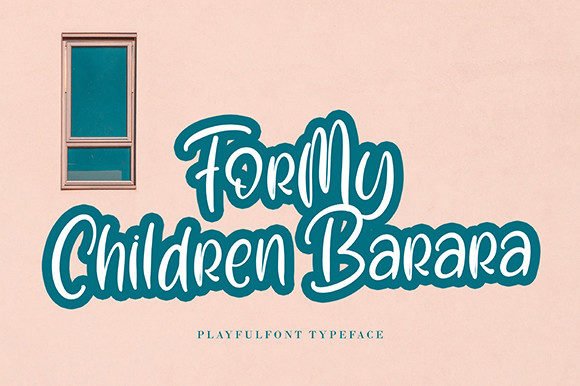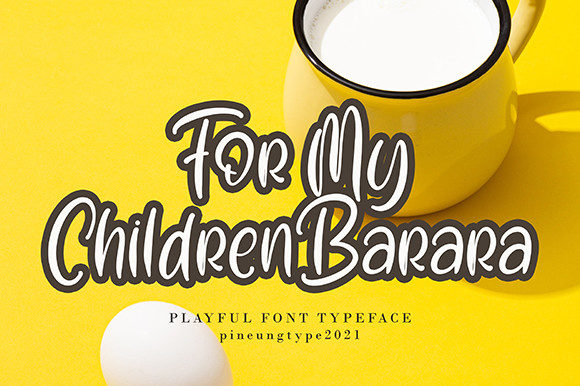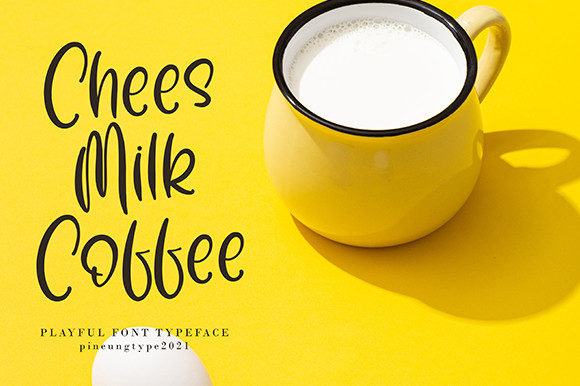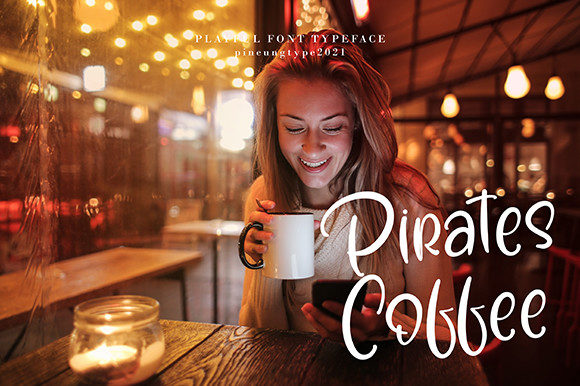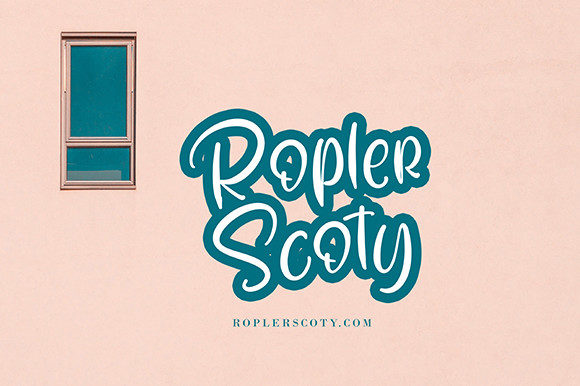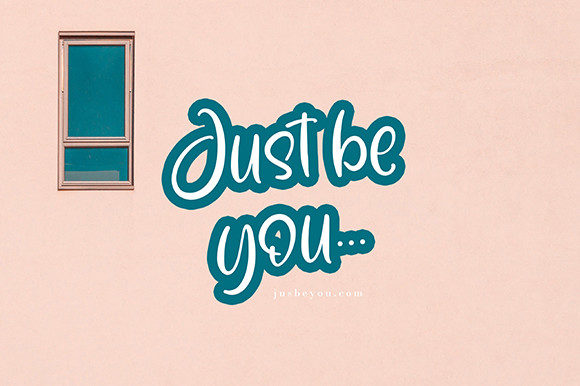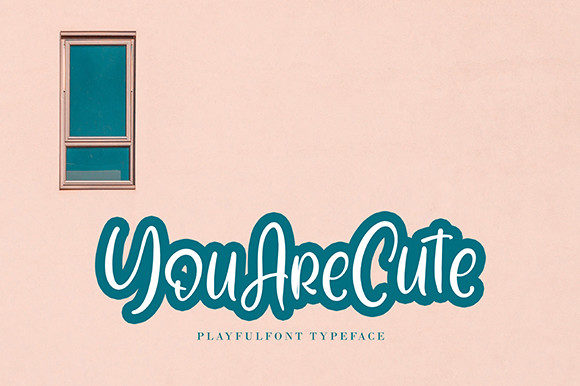
Unleashing Imagination with For My Children Barara Font
Remember the last time you picked up a crayon and let your creativity run wild? The world became a colorful playground, and anything was possible. For many of us, that spark of imagination never truly fades, but it’s wonderful to have tools that help us reignite it. One such tool is the adorable For My Children Barara Font, a script font designed to bring a childlike playfulness to any project.
Whether you’re working on a kids’ book, a school project, or simply want to add a touch of whimsy to a design, For My Children Barara Font is the perfect companion. Its value lies not only in its aesthetic appeal but also in its ability to convey a sense of innocence and wonder. As a designer, you’ll appreciate the flexibility and versatility that this font offers, making it an invaluable addition to your creative toolkit.
For My Children Barara Font Key Features
- Font Family: For My Children Barara Font is a unique, handwritten script font designed for personal and creative use.
- Unique Characteristics: Features a mix of elegant and playful elements, making it suitable for various design applications, including invitations, quotes, and titles.
For My Children Barara Font Review
As a designer, I was excited to dive into the For My Children Barara Font and see what it had to offer. Here are my honest thoughts.
- Cute and playful: This font is perfect for creating a whimsical feel in your designs. It’s great for projects that need a touch of warmth and personality.
- High-quality glyphs: The font has a good range of characters, including numbers and punctuation, which makes it versatile for use in various contexts.
- Good legibility: The font is easy to read, even at smaller font sizes, which is essential for effective communication.
- Limited character set: While the font has a good range of characters, it’s not as extensive as some other fonts in its category. This might limit its use in more complex projects.
- Not suitable for formal designs: The playful nature of this font makes it better suited for casual or creative projects. It might not be the best choice for formal or professional designs.
Overall, I think the For My Children Barara Font is a great choice for designers who want to add a touch of whimsy to their projects. While it has some limitations, its unique personality and high-quality glyphs make it a valuable addition to any designer’s toolkit.
The For My Children Barara Font is suitable for:
- Children’s book titles and headings.
- Personalized gifts and certificates.
For optimal results, use the For My Children Barara Font in combination with bold and italic text styles to create visual interest.